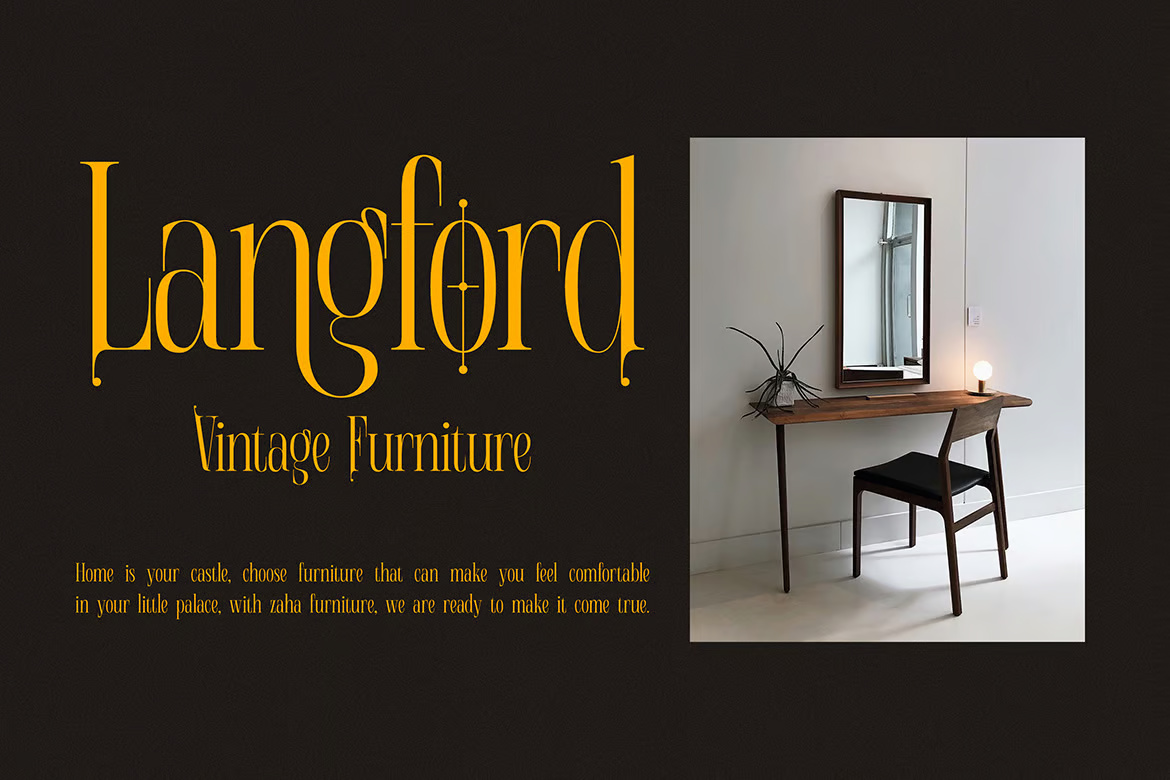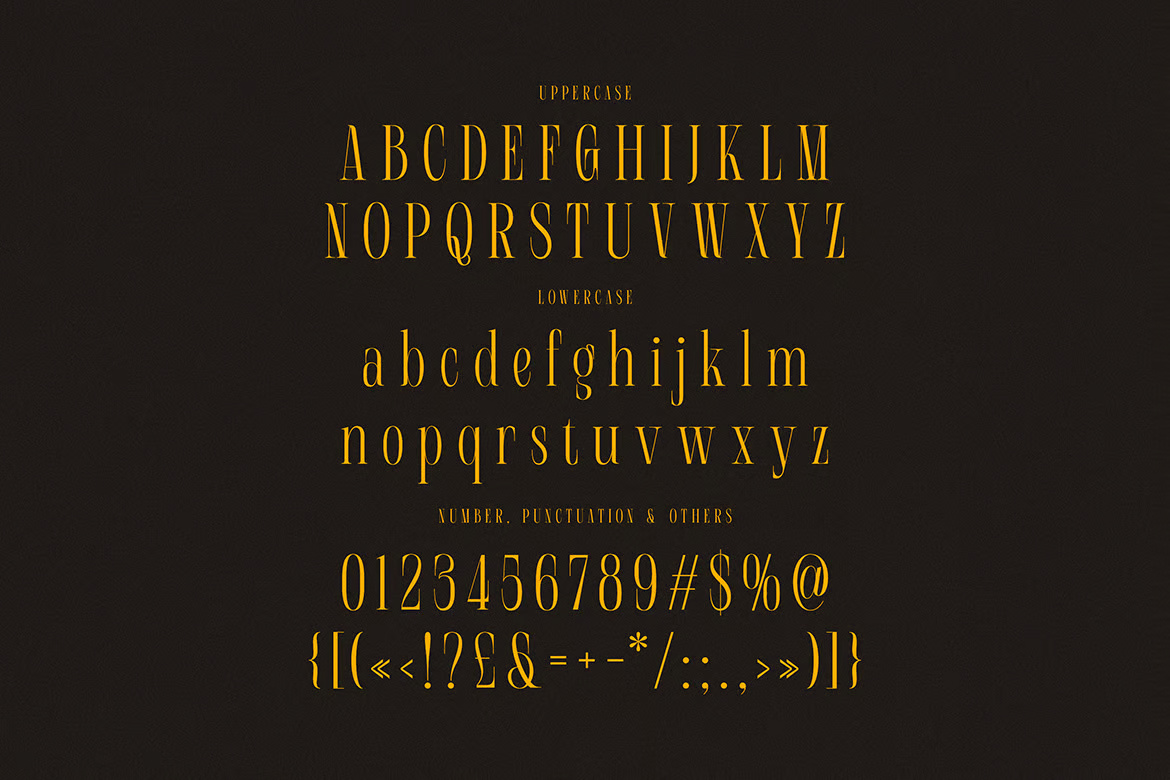
Michael Carsl Condensed Serif
Michael Carsl Condensed Serif is a stylish and elegant typeface with a refined, narrow letterform. It features sharp serifs, balanced proportions, and a sophisticated look, making it ideal for high-end branding, editorial design, and elegant packaging. The condensed structure allows for space-efficient typography while maintaining readability and class.
Michael Carsl Condensed Serif Font
Michael Carsl Condensed Serif